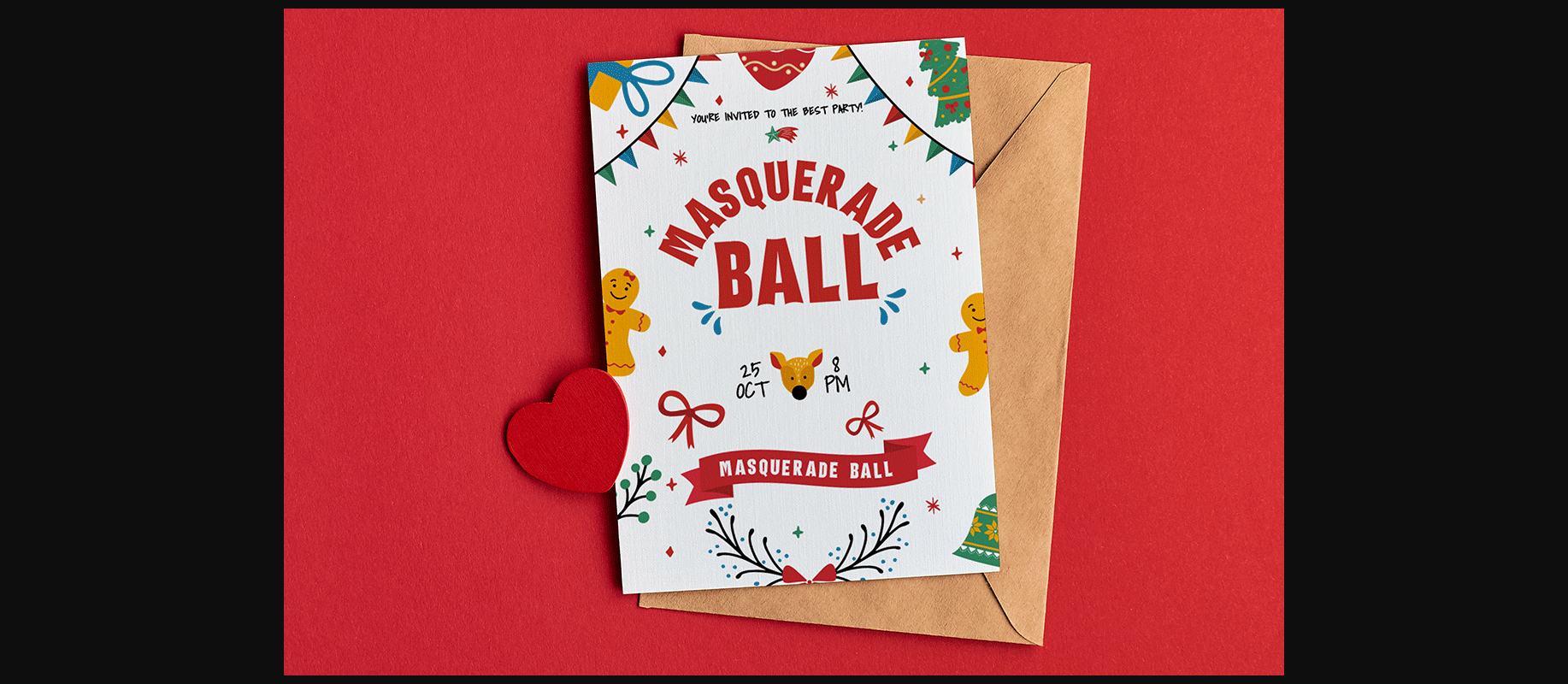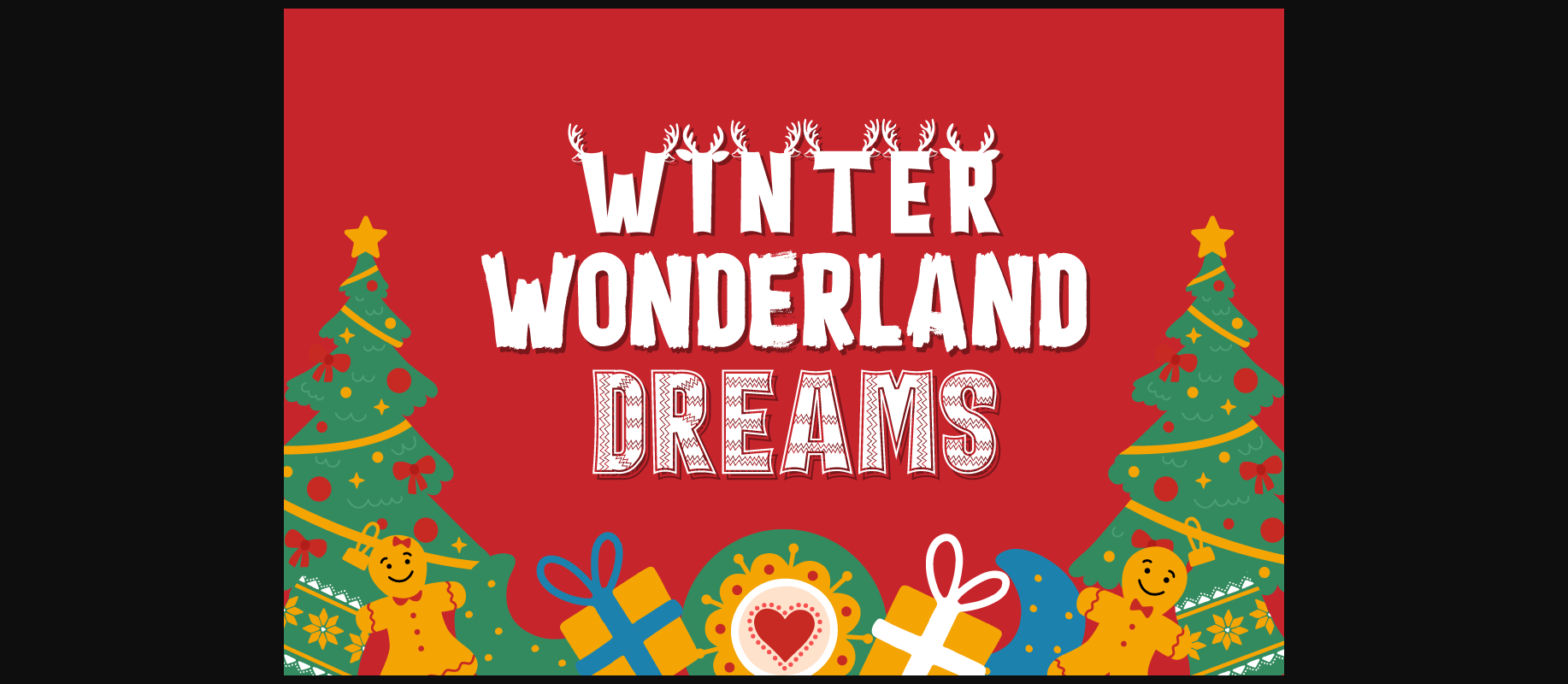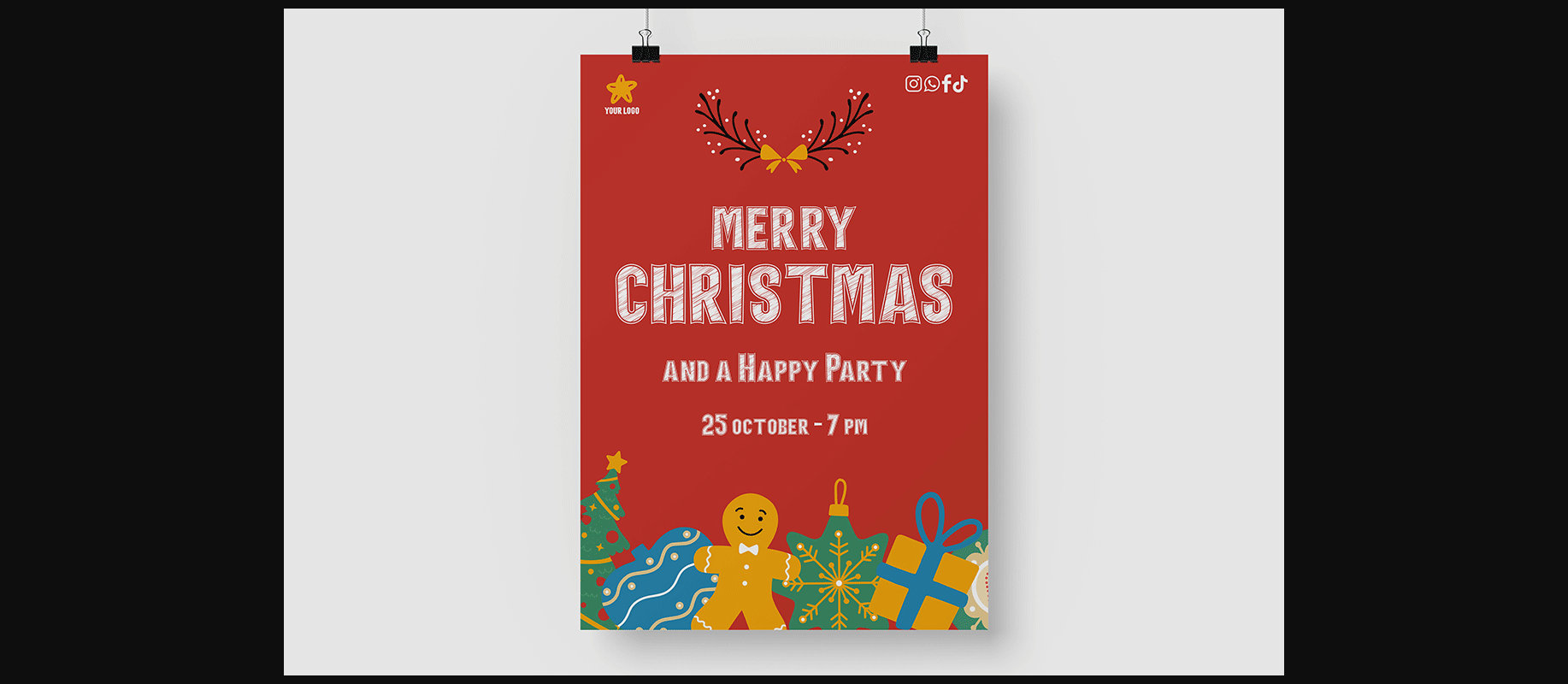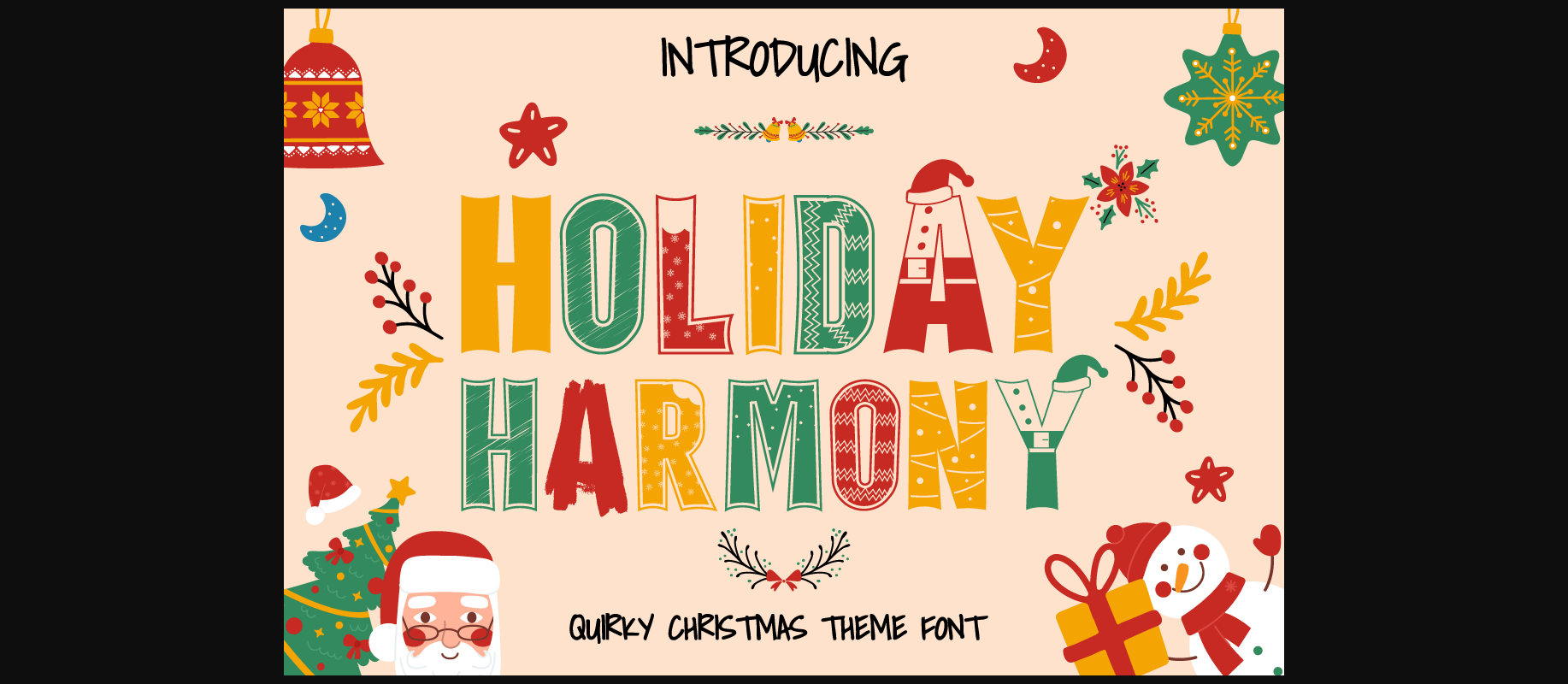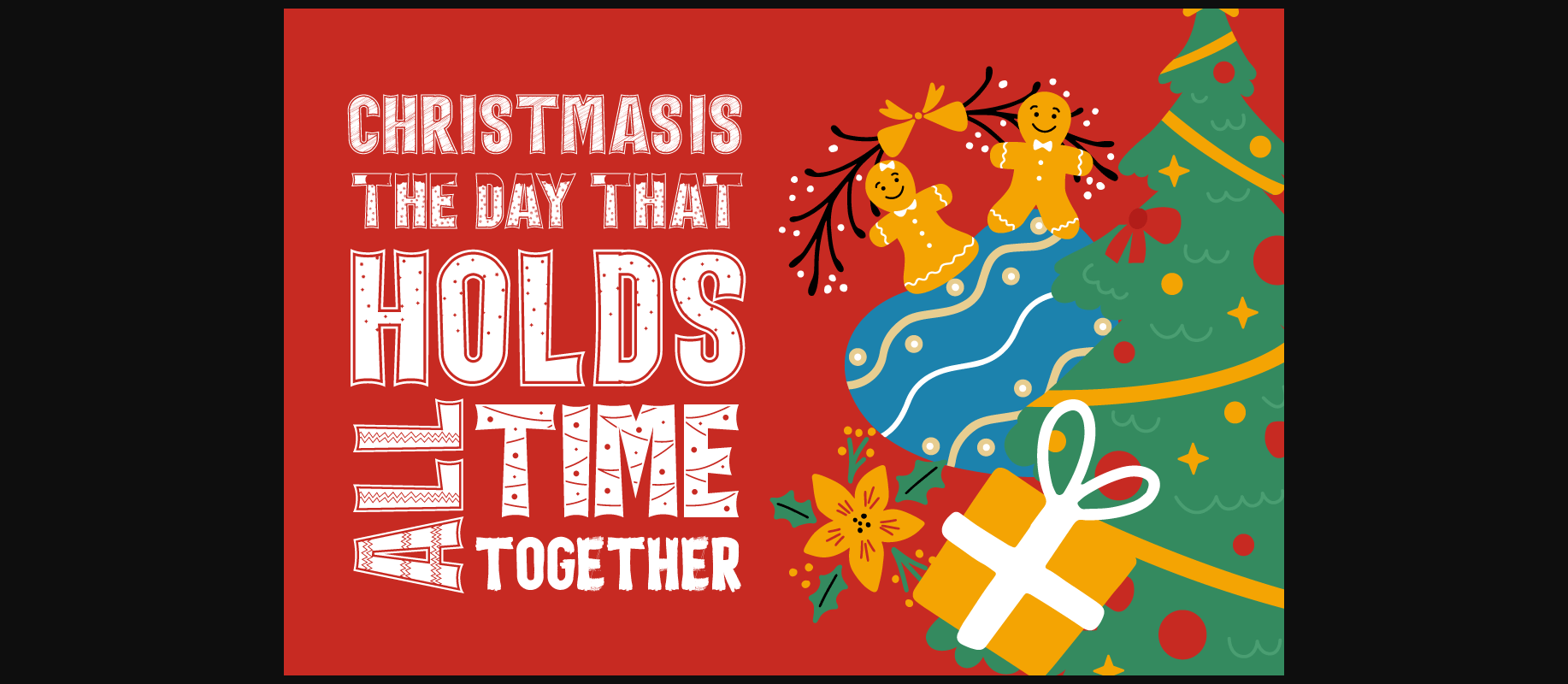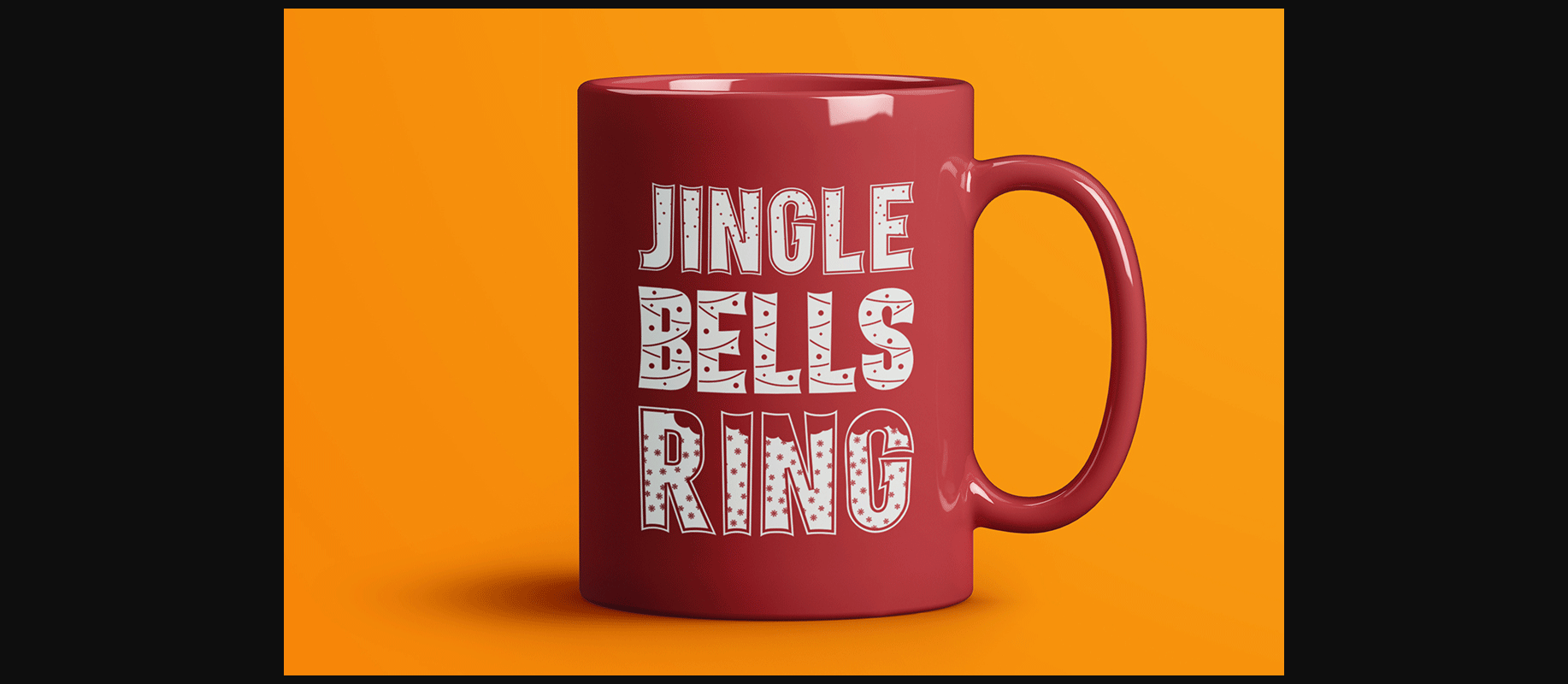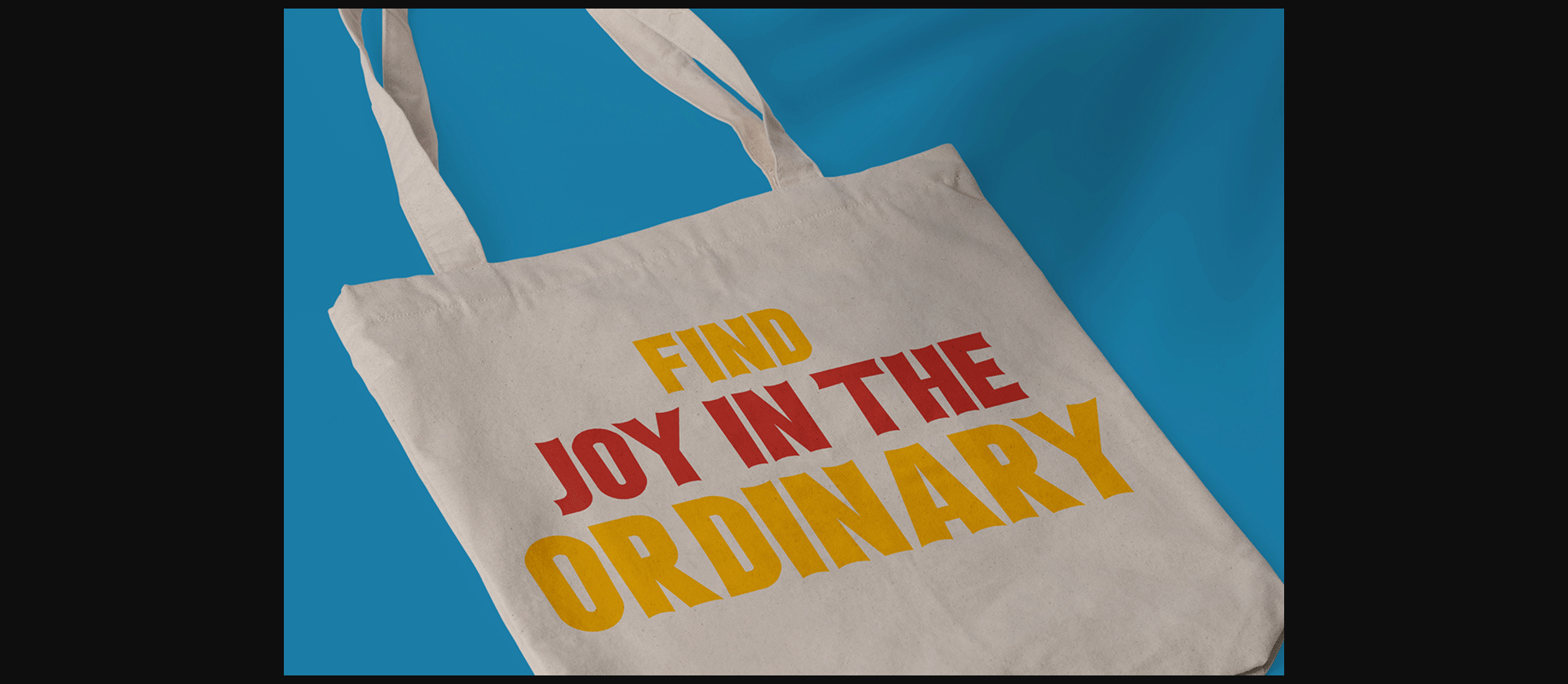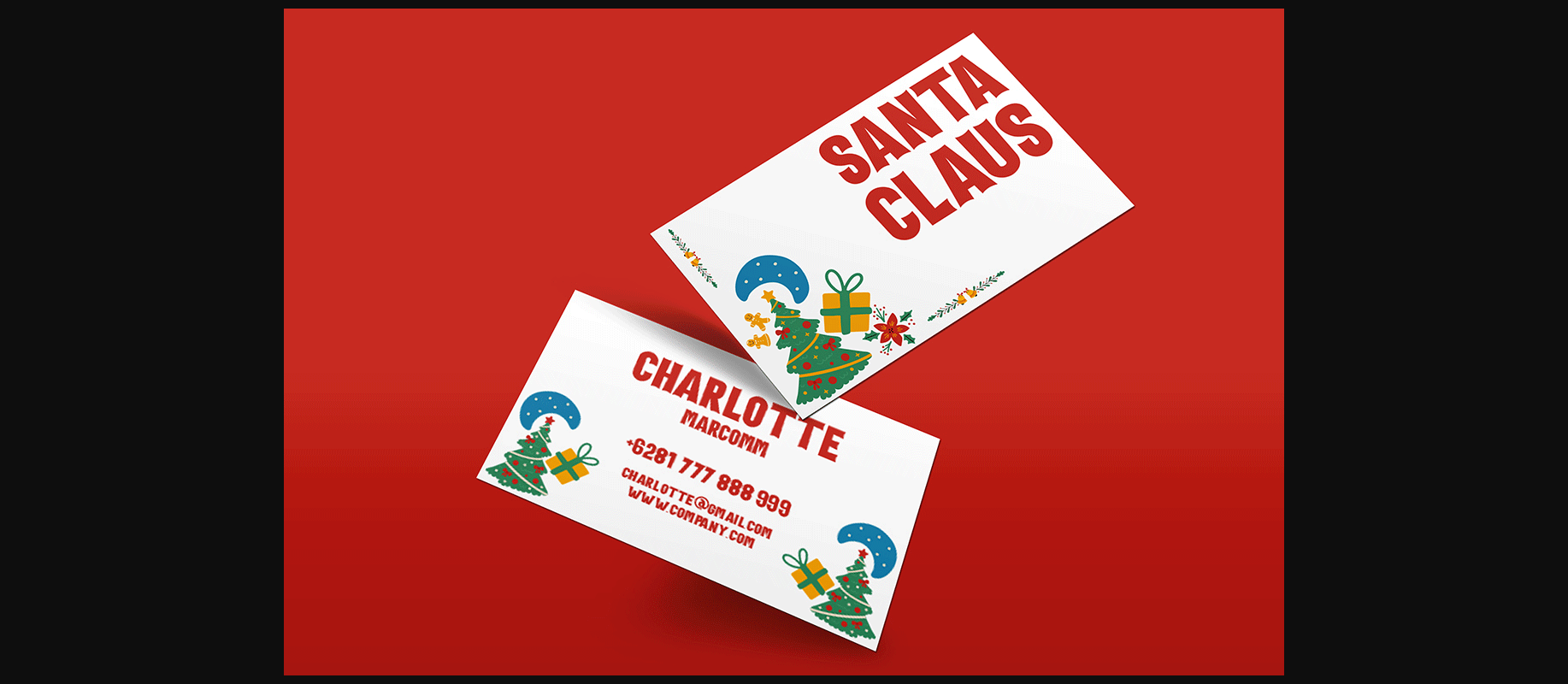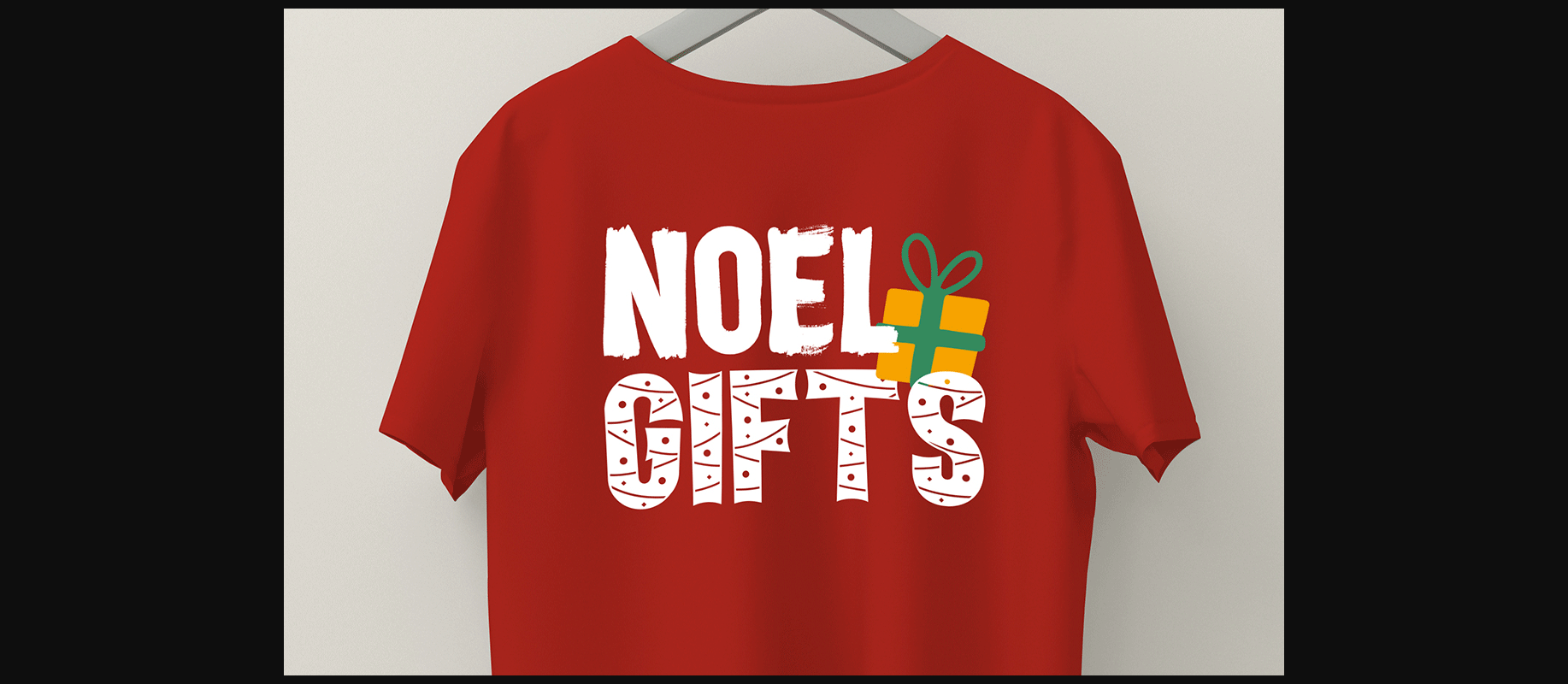
Holiday Harmony Font
Introducing “Holiday Harmony,” a quirky Christmas-themed font that encapsulates the joy and spirit of the holiday season. This display font, crafted with precision, is unique and playful, making it a perfect choice for a wide range of festive applications. Each letter is designed with elements reminiscent of Christmas – from jolly Santa Claus to graceful reindeers, snowflakes to gifts wrapped with love.
With nine distinct variations, “Holiday Harmony” offers versatility; each style resonating the warmth and happiness associated with Christmas. It’s not just a font but an experience, bringing stories to life with its all-caps and crafting-friendly design.
Whether you’re looking to adorn your holiday greeting cards or seeking the perfect typography for your winter-themed posters, branding or packaging – “Holiday Harmony” stands out, promising creativity at every stroke. Available in both OTF and TTF formats ensuring compatibility and functionality.